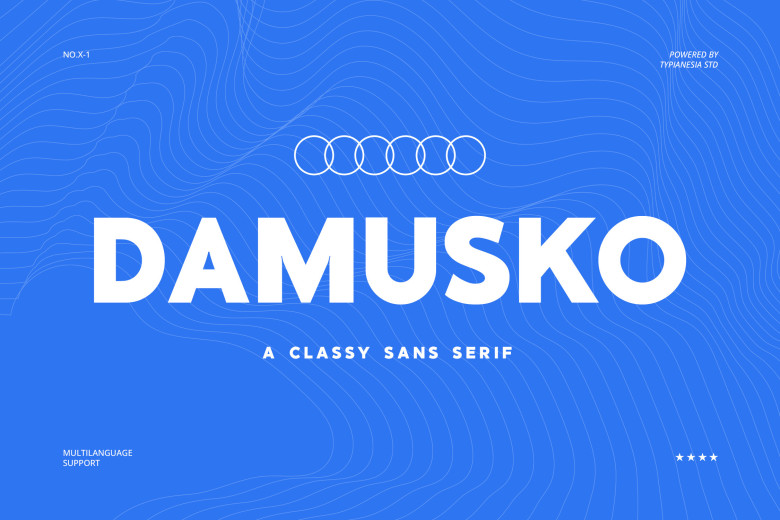
Damusko Font
Damusko is described as a classy sans-serif font that applies both brawny and sleek. This makes it a very clean looking font that offers a rather contemporary style while at the same time giving off very strong, refined impressions and it is suitable for use in projects that call for a stylish look.
Damusko is perfect for branding, corporate images, editorial design, web design, packaging design, ads, this font is perfect for posters, flyers, and banners for the advertisement as due to a bold typography of the font, the text is easy to read and memorable.
Damusko Sans Serif Font